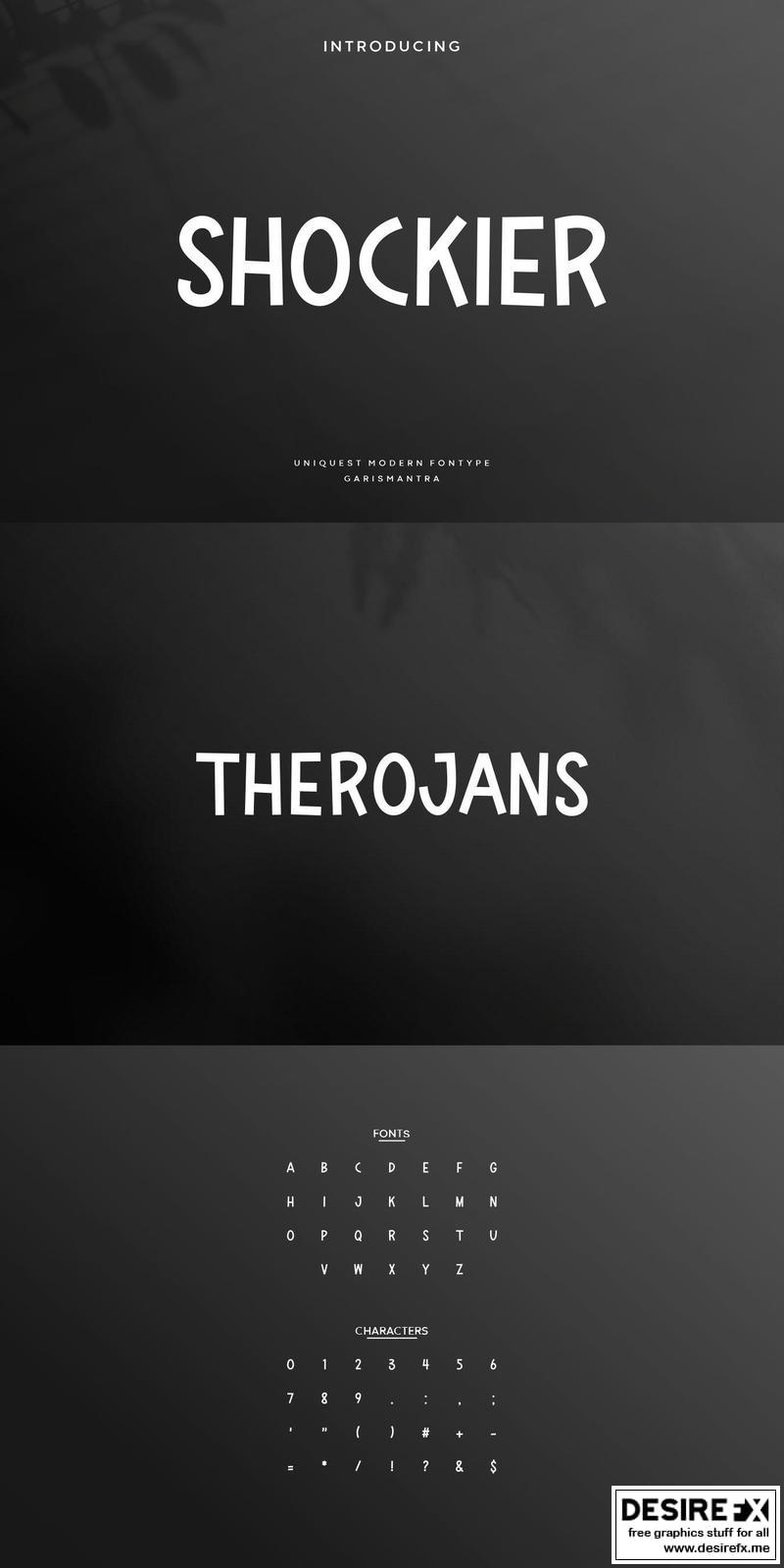
Shockier font is a display font in a children’s handwriting style with a bit of improvisation in uppercase mode, although it’s all uppercase. This font is perfect for anything related to food, children, children’s illustrations, book titles, website titles, video writing, or anything else you can try to gain experience in your graphic design needs. With a simple and slightly naive writing display, it gives a dynamic, cheerful and uplifting effect.